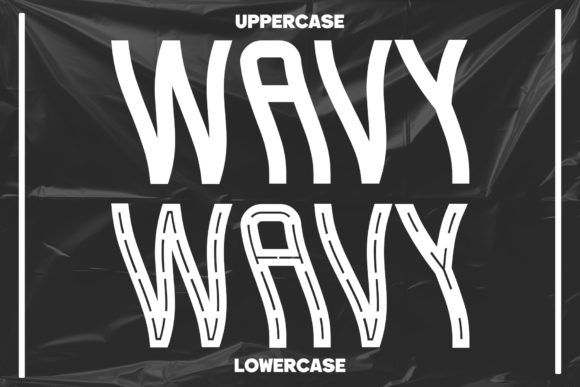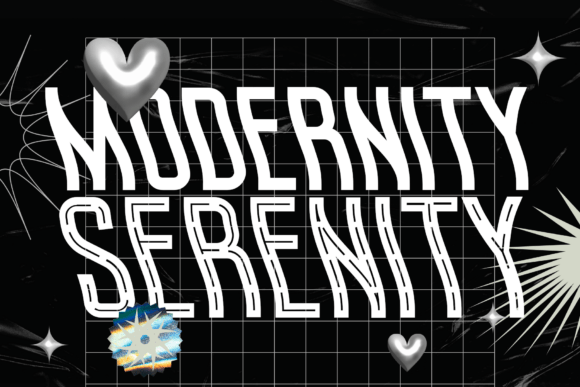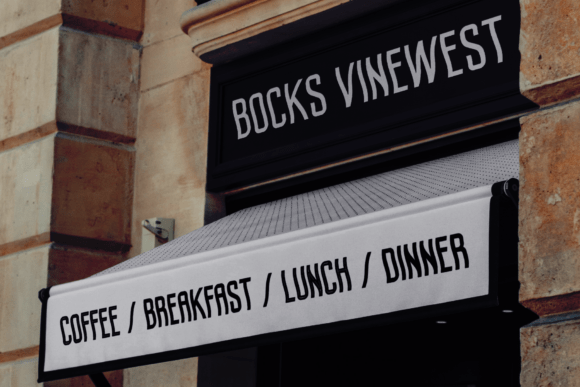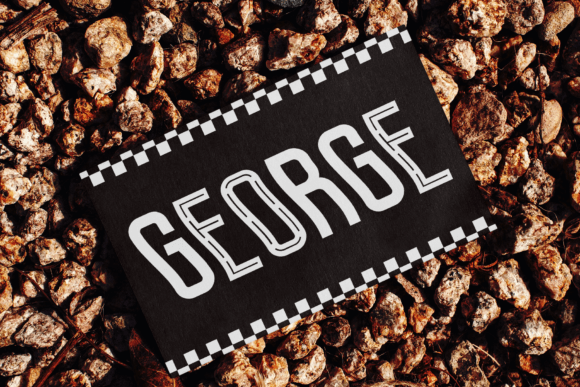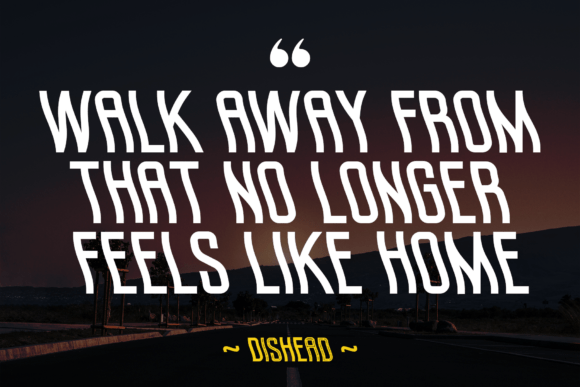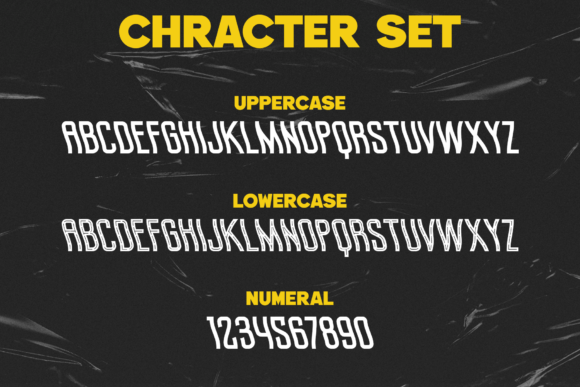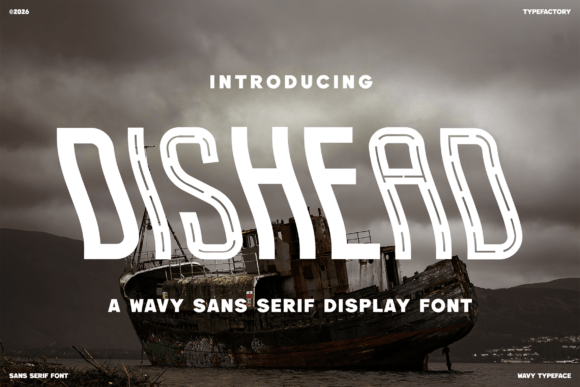
Introducing Dishead Font: The Bold and Futuristic Typeface for Creative Projects
In the world of typography, fonts play a crucial role in conveying the tone and personality of a brand or design. For creative professionals, finding the right font can make all the difference in bringing their vision to life. If you’re looking for a bold and futuristic typeface that can elevate your designs, look no further than Dishead Font. In this article, we’ll explore the unique features of Dishead, its uses, and why it’s a must-have for designers and crafters.
What is Dishead Font?
Dishead is a wavy sans serif display font that boasts bold, futuristic shapes, curved vertical strokes, and a strong experimental look. Its modern distorted style sets it apart from traditional fonts, making it perfect for designs that require a unique and attention-grabbing approach. With Dishead, you can add a touch of edginess and sophistication to your projects, making it ideal for music posters, streetwear graphics, album covers, event flyers, editorial headlines, branding, signage, packaging, and bold visual identity projects.
Key Features of Dishead Font
- Wavy Sans Serif Design: Dishead’s sans serif design gives it a clean and modern look, while its wavy curves add a touch of playfulness and creativity.
- Bold Futuristic Shapes: The font’s bold and futuristic shapes make it perfect for designs that require a strong and attention-grabbing approach.
- Curved Vertical Strokes: Dishead’s curved vertical strokes add a touch of elegance and sophistication, making it suitable for a wide range of design projects.
- Experimental Look: The font’s experimental look makes it perfect for designers who want to push the boundaries of traditional typography.
Uses of Dishead Font
Dishead’s versatility makes it suitable for a wide range of design projects, including:
- Music Posters: Add a touch of edginess to your music posters with Dishead’s bold and futuristic design.
- Streetwear Graphics: Dishead’s modern and distorted style makes it perfect for streetwear graphics, such as t-shirt designs and logos.
- Album Covers: Give your album covers a bold and attention-grabbing look with Dishead’s unique design.
- Event Flyers: Make your event flyers stand out with Dishead’s experimental and futuristic style.
- Editorial Headlines: Add a touch of sophistication to your editorial headlines with Dishead’s curved vertical strokes and bold shapes.
- Branding: Use Dishead to create a bold and memorable brand identity that sets you apart from the competition.
- Signage: Dishead’s bold and futuristic design makes it perfect for signage, such as billboards and posters.
- Packaging: Add a touch of edginess to your packaging with Dishead’s unique and attention-grabbing design.
Why Choose Dishead Font?
With so many fonts available, why choose Dishead? Here are just a few reasons why Dishead stands out:
- Unique Design: Dishead’s bold and futuristic design makes it perfect for designers who want to create unique and attention-grabbing designs.
- Versatility: Dishead’s versatility makes it suitable for a wide range of design projects, from music posters to editorial headlines.
- Experimental Look: Dishead’s experimental look makes it perfect for designers who want to push the boundaries of traditional typography.
In conclusion, Dishead Font is a bold and futuristic typeface that can elevate your designs to the next level. With its unique features, versatility, and experimental look, Dishead is perfect for designers and crafters who want to create attention-grabbing and sophisticated designs. Whether you’re working on music posters, streetwear graphics, album covers, or editorial headlines, Dishead is a must-have font that can help you achieve your creative vision.